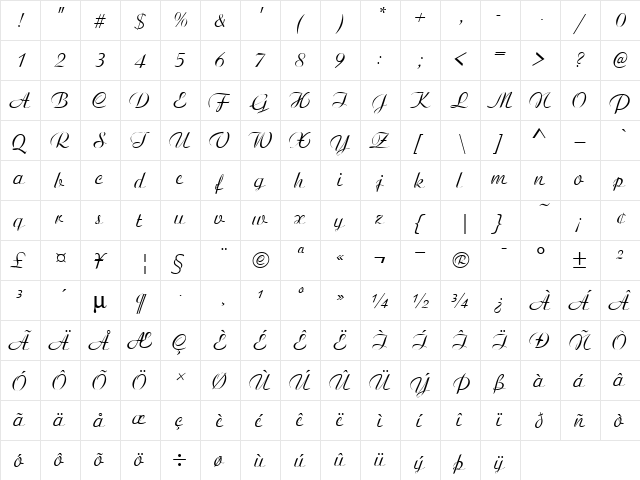
Ariston Regular Regular
Design Context for Ariston Regular Typeface
Ariston Regular takes a measured approach to typography — its balanced proportions and neutral character make it a reliable workhorse for both digital and print work.